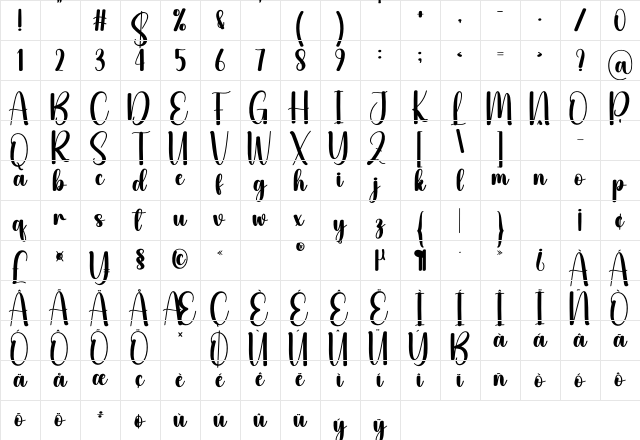
Thepumkin Regular Free Font
Thepumkin Regular
Design Context for Thepumkin
Thepumkin is a composed and adaptable typeface that performs quietly and consistently across a wide range of design contexts.